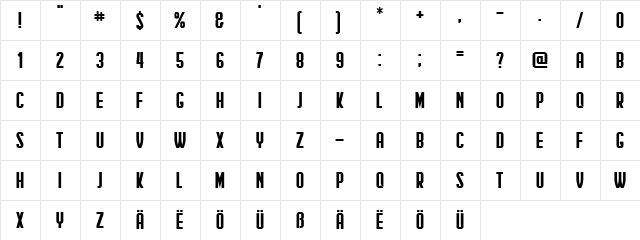
Hindenburg Condensed Regular
Design Context for Hindenburg Condensed Typeface
Hindenburg Condensed offers clean, dependable letterforms without strong stylistic allegiance, making it a practical choice for designers who need flexibility. The condensed width makes it efficient for tight spaces without sacrificing legibility.